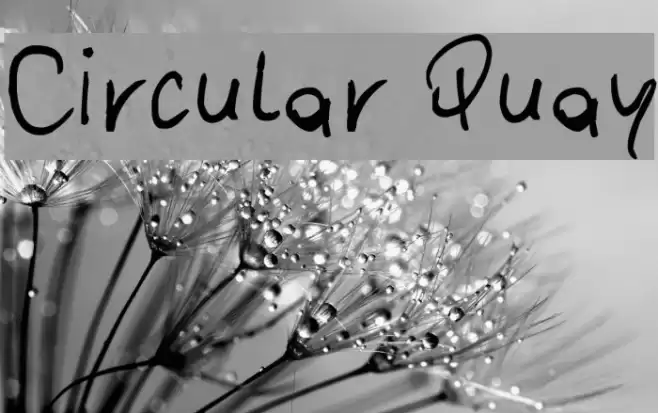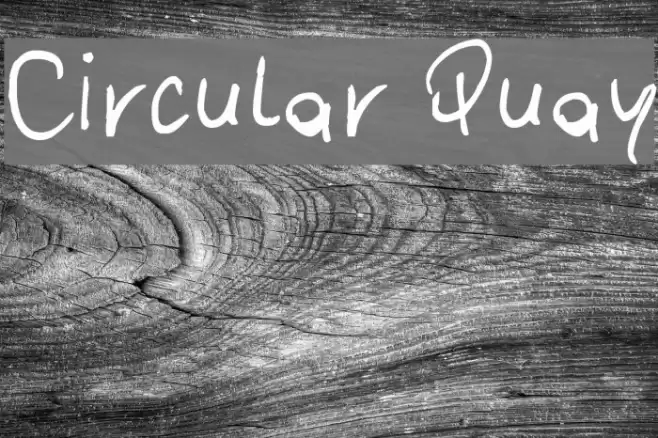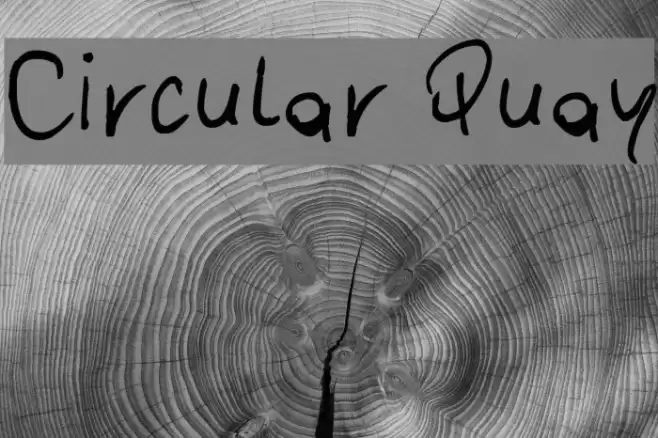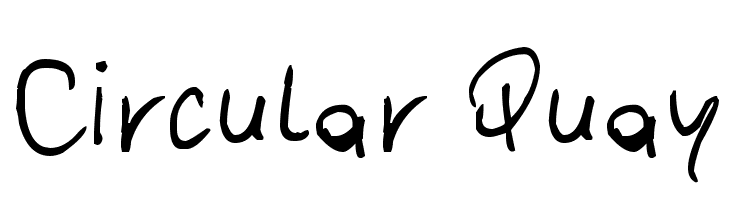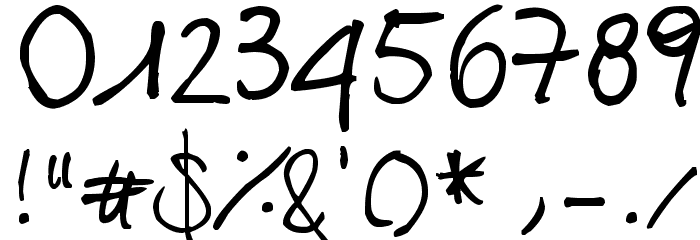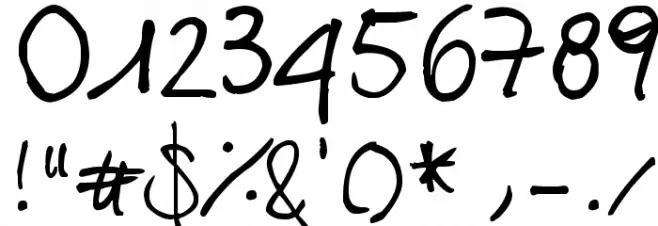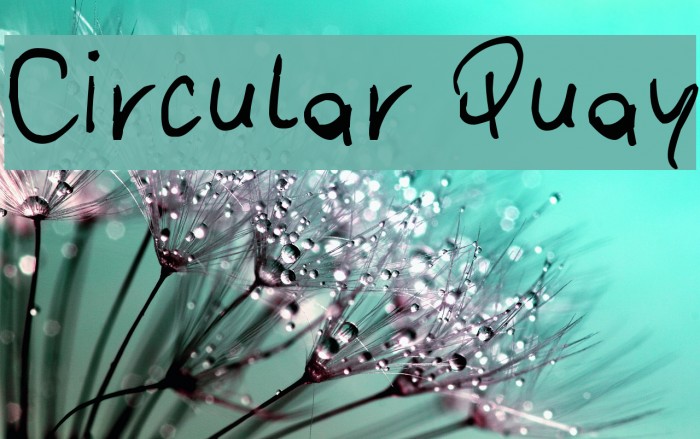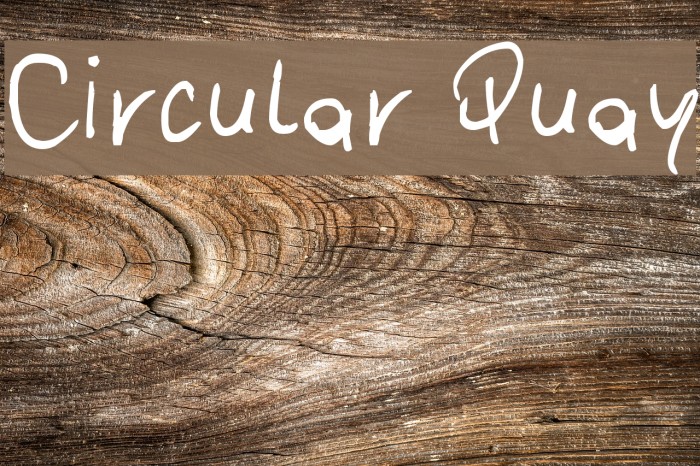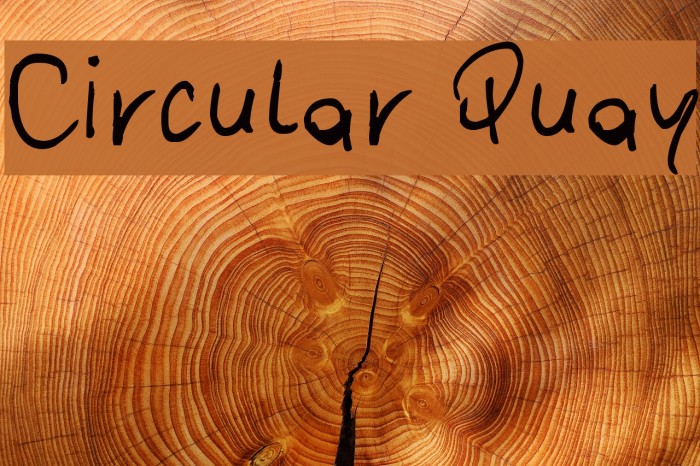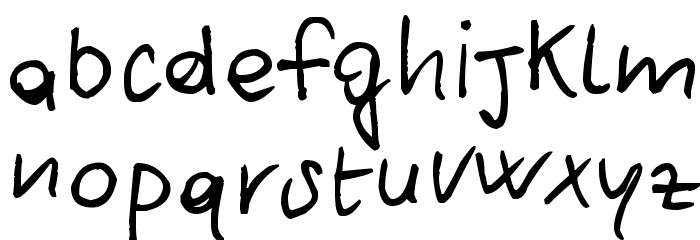
Circular Quay Font
Circular Quay Description
This font exudes a casual and handwritten style, characterized by its organic and flowing letterforms. The strokes are uneven, adding a personal and informal touch, reminiscent of a quick sketch or note. The uppercase and lowercase letters maintain a consistent style, with slightly varying heights and widths that contribute to its dynamic appearance. The numerals and special characters follow the same handwritten aesthetic, ensuring a cohesive look across all glyphs. This font is perfect for projects that require a personal, approachable, and creative feel.
A casual, handwritten font with an organic and informal style from Uncategorized fonts.
- Proposed Projects: Ideal for greeting cards, personal notes, creative branding, and informal invitations.
- Overall Style: Casual, Informal, Creative
- Use Case: Logos, Invitations, Personal Notes